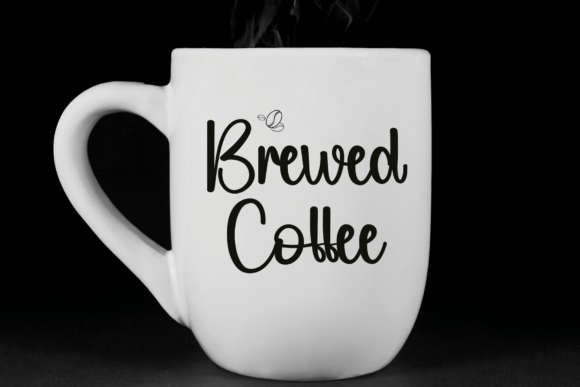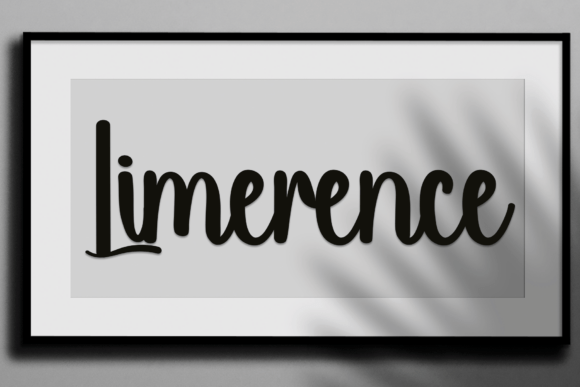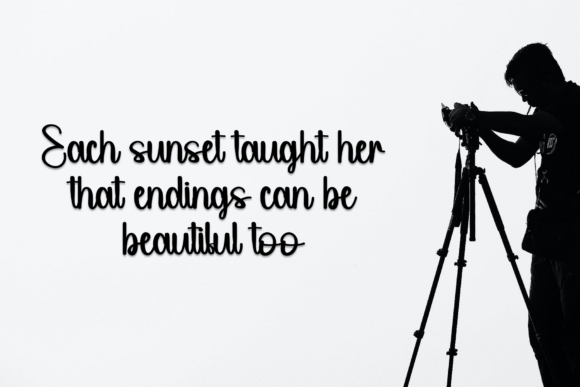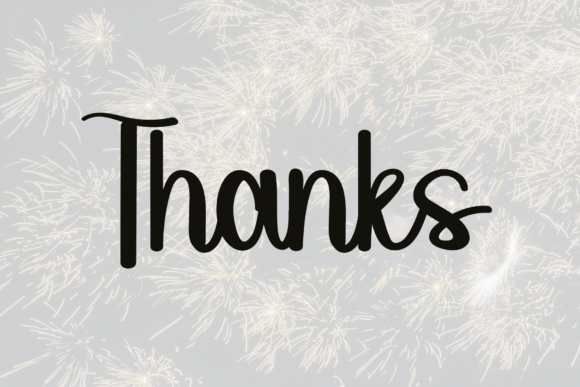
Introducing Happy Newyear Font: The Perfect Blend of Elegance and Casualness
As the clock strikes midnight on New Year’s Eve, we bid adieu to the old and welcome the new with open arms. What better way to usher in the new year than with a font that’s as fresh and vibrant as the occasion itself? Say hello to Happy Newyear Font, a stunning handwritten font that exudes a sense of relaxed sophistication.
What Makes Happy Newyear Font So Special?
Happy Newyear Font is a beautiful, marker-drawn script font that boasts a unique, hand-crafted feel. Its sporty and laid-back vibe makes it an excellent choice for a wide range of design applications, from branding and logos to wedding supplies, greeting cards, and marketing promotions. Whether you’re a designer, crafty DIY enthusiast, or simply someone who appreciates the art of typography, this font is sure to captivate you with its effortless charm.
Key Features of Happy Newyear Font
- Handwritten with a marker feel: Happy Newyear Font is carefully crafted to resemble handwriting with a marker, giving it a distinct, organic look that’s both playful and refined.
- Relaxed and sporty feel: This font’s casual, laid-back vibe makes it perfect for designs that require a touch of elegance without being too formal.
- Suitable for various design applications: From luxury branding and logos to wedding stationery, greeting cards, and marketing materials, Happy Newyear Font adapts seamlessly to different contexts.
- Luxurious yet casual: This font strikes the perfect balance between sophistication and approachability, making it an excellent choice for designers seeking to create visually stunning and engaging designs.
Use Cases for Happy Newyear Font
Happy Newyear Font’s versatility makes it an excellent addition to any designer’s toolkit. Here are some inspiring use cases for this beautiful font:
- Branding and logos: Create a lasting impression with a custom logo or brand identity that exudes elegance and approachability.
- Wedding supplies: Add a touch of whimsy and romance to wedding stationery, invitations, and decorations with Happy Newyear Font.
- Greeting cards: Design heartfelt, handmade-style greeting cards for special occasions like birthdays, anniversaries, and holidays.
- Fashion and lookbooks: Elevate your fashion designs or lookbooks with a font that’s both stylish and laid-back.
- Marketing promotions: Stand out in the crowded market with eye-catching promotional materials that showcase your brand’s personality.
Why Choose Happy Newyear Font?
In a world where fonts are a dime a dozen, Happy Newyear Font stands out for its unique character and adaptability. Here are some compelling reasons to choose this font for your next design project:
- Unique and eye-catching: Happy Newyear Font is sure to capture attention and leave a lasting impression on your audience.
- Easy to read and understand: Despite its artistic feel, this font remains highly legible, making it perfect for body text and headings.
- Customizable: Feel free to experiment with different colors, textures, and design elements to make Happy Newyear Font your own.
Happy Newyear Font is a beautiful, marker-drawn script font that offers the perfect blend of elegance and casualness. Its versatility, unique character, and adaptability make it an excellent choice for designers, crafters, and anyone looking to add a touch of sophistication to their designs. Whether you’re working on a branding project, wedding supplies, or simply want to create stunning visual content, Happy Newyear Font is sure to become your go-to font for years to come.